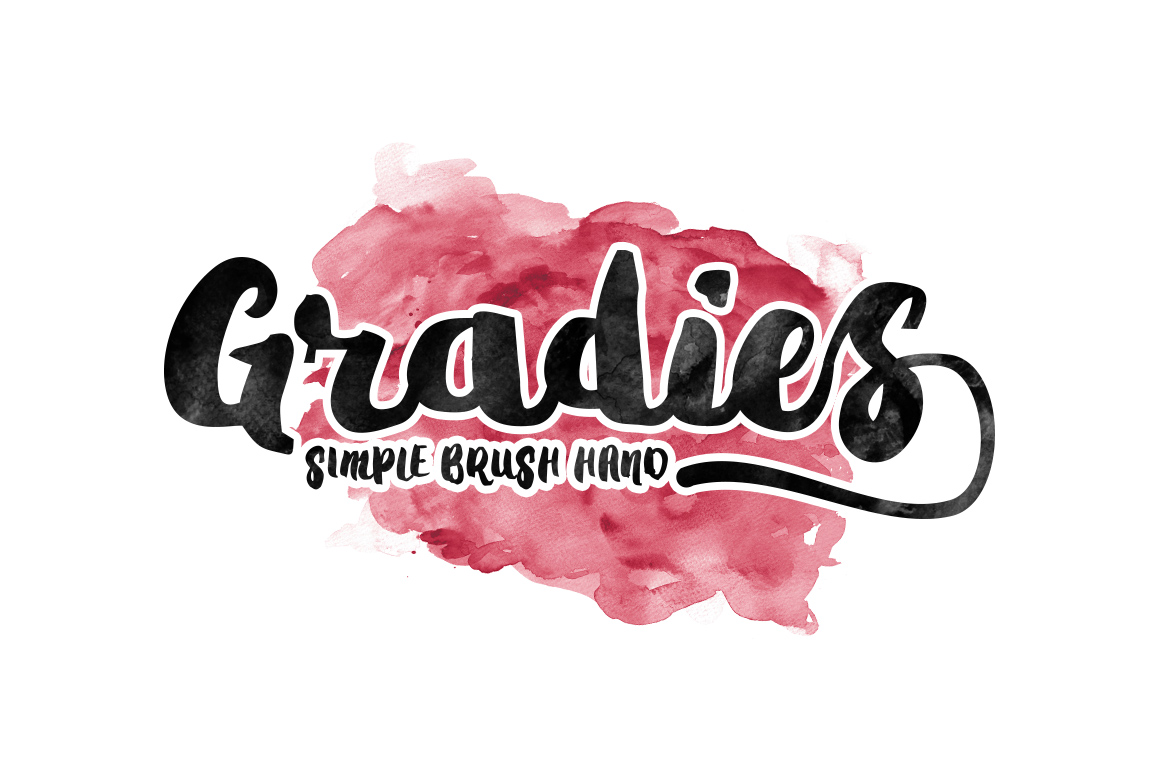
Gra.s Brush a new fresh modern Brush script with a sweet calligraphy style, decorative characters and a dancing baseline! So beautiful on .Gra.s Brush a new fresh modern Brush script with a sweet calligraphy style, decorative characters Gra.s Brush Font License Free for Personal Use..Download Free Fonts from Font Bundles. Premium fonts without the price tag Download our fonts free today commercial license included. New fonts added .Download Free Fonts from Font Bundles. Premium fonts without the price tag Download our fonts free today commercial license included. New fonts added .Gra.s Brush a new fresh modern Brush script with a sweet calligraphy style, decorative characters and a dancing baseline! So beautiful on invitation like .Download Free Fonts from Font Bundles. Premium fonts without the price tag Download our fonts free today commercial license included. New fonts added .Personal Use Only! . Gra.s Brush is a friendly and unique font this brush script can add some uniqueness and handlettered feel to your special .Download Gra.s Brush Creativemarket Fonts by Ijemrockart, Fontbundles free and premium fonts, Download Premium Script Fonts . KB. Dreams Liem .